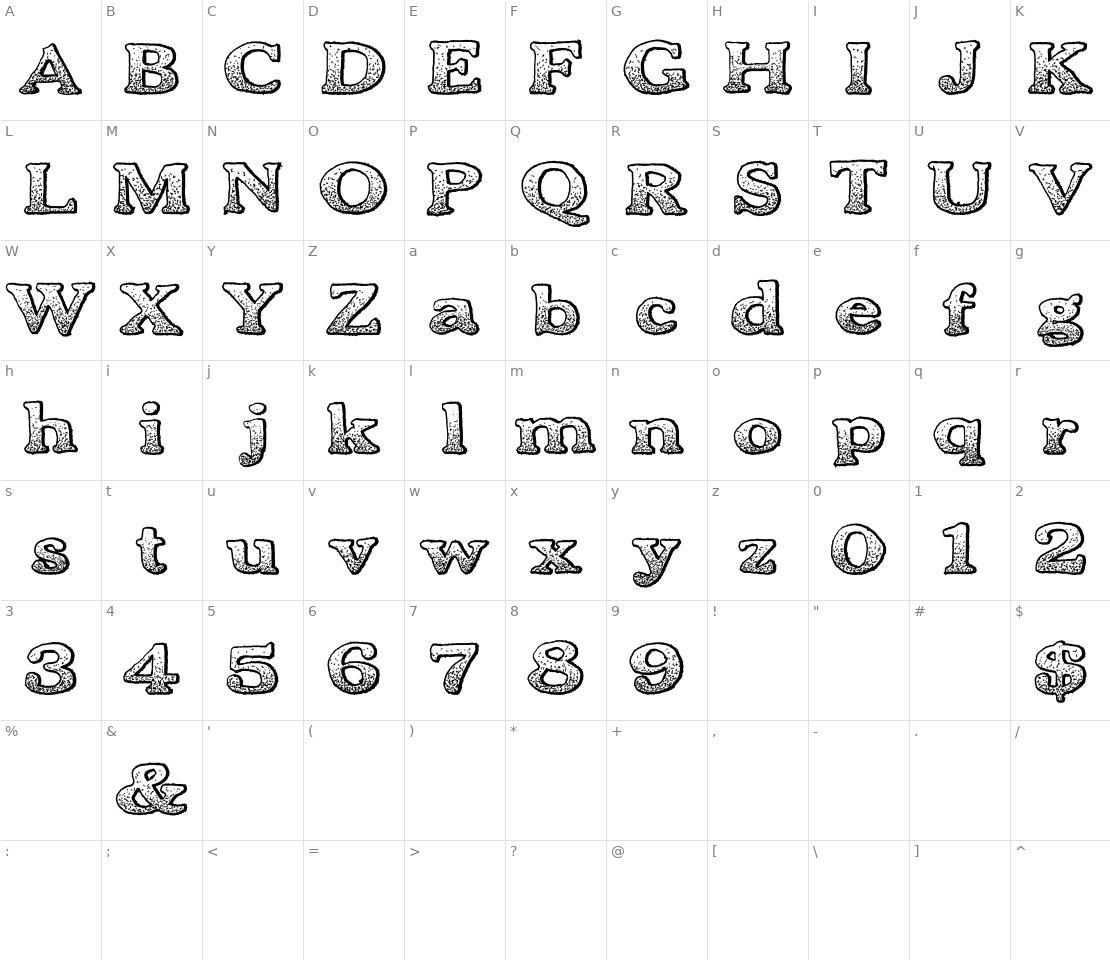
Bold Drink
Bold Drink is a heavy, textured serif from Xerographer Fonts with a worn, inky quality that makes every letter look like it was pulled from an old letterpress run. The rough edges and visible grit give it a lived-in vintage character that works naturally on posters, packaging, and editorial headlines where you want something with real analog warmth. It's a display face through and through, best kept big so the distressed details can do their thing.